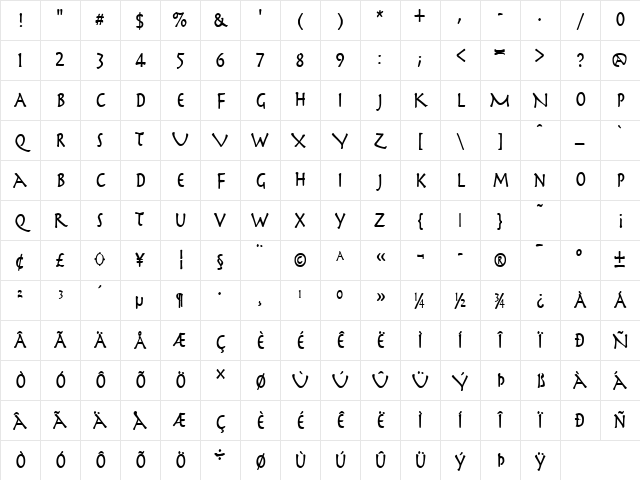
Mythology-Condensed Bold
Design Context for Mythology-Condensed
Mythology-Condensed is a composed and adaptable typeface that performs quietly and consistently across a wide range of design contexts. Its bold stroke weight gives it real presence on the page. Its narrow stance lets it pack a punch even in space-constrained designs.